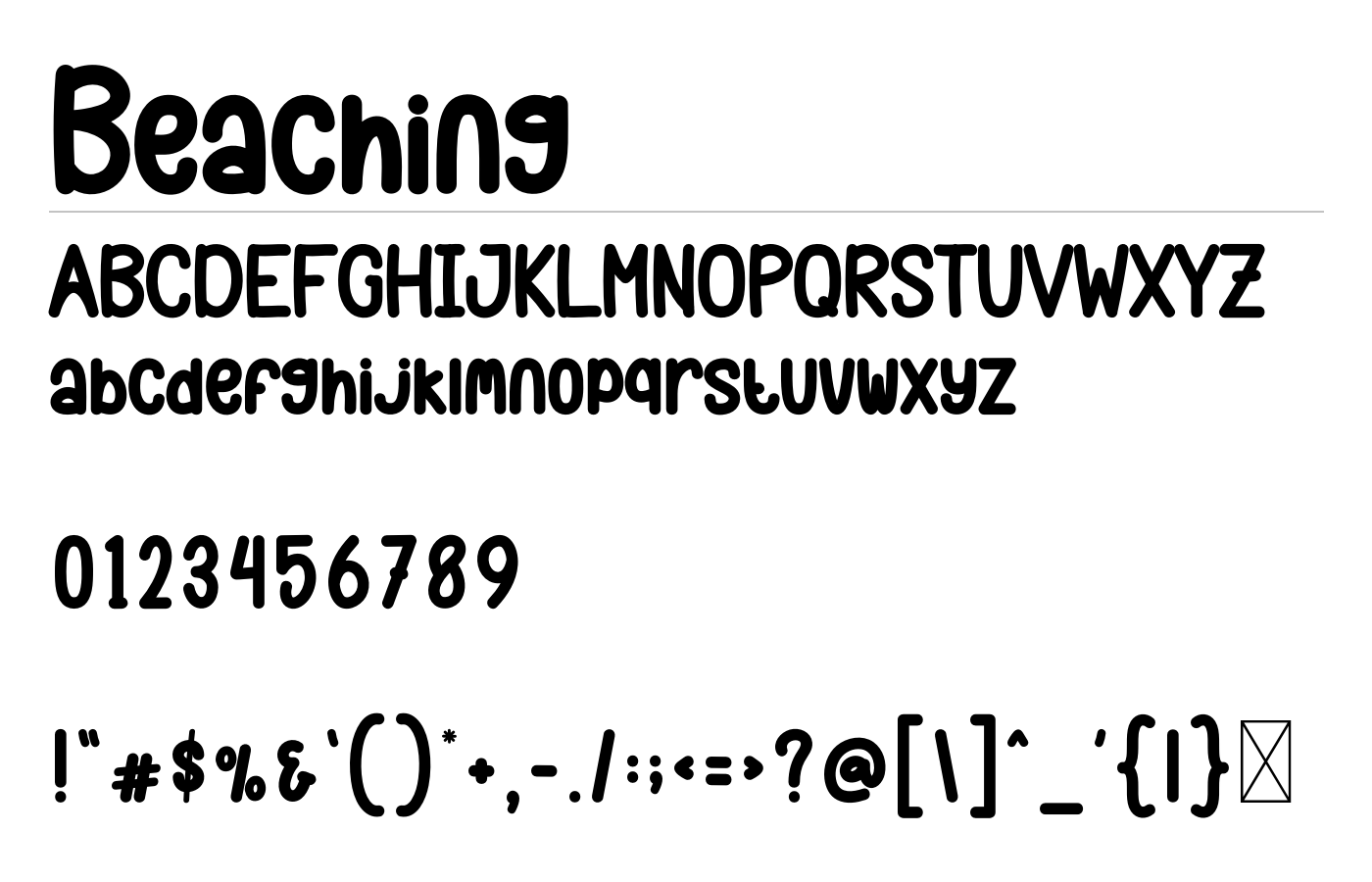
Beaching Font is a playful and casual sans serif typeface with rounded, slightly irregular letterforms that give it a hand-crafted feel. Its medium weight and quirky shapes, like the unique lowercase "g" and uneven strokes, make it ideal for fun, friendly designs such as children’s books, informal branding, and creative posters. This font’s cheerful personality and clear readability work well wherever a relaxed and approachable tone is desired.
Beaching Font